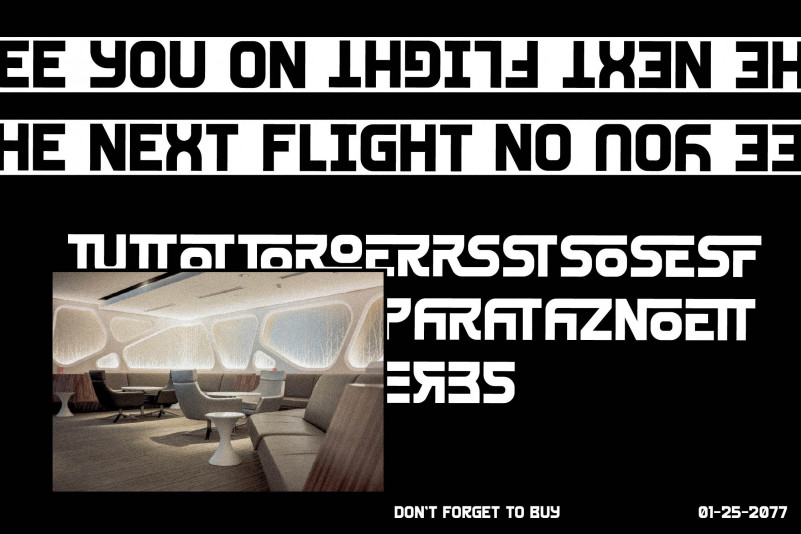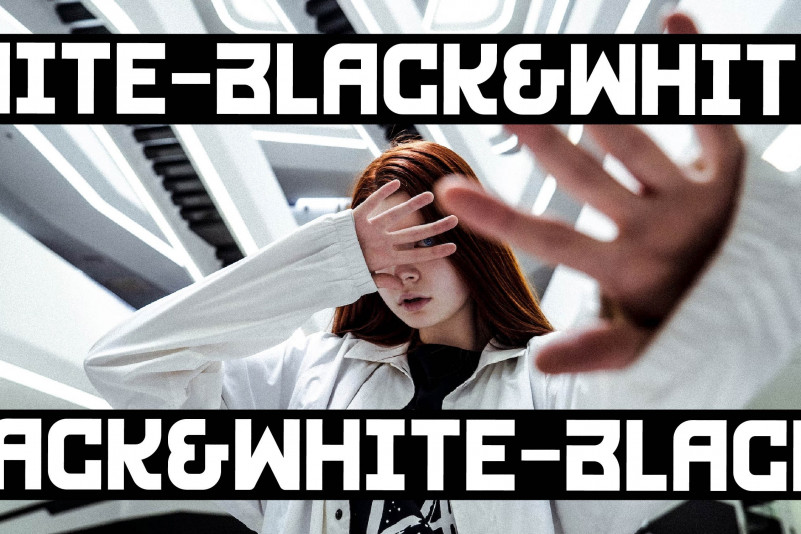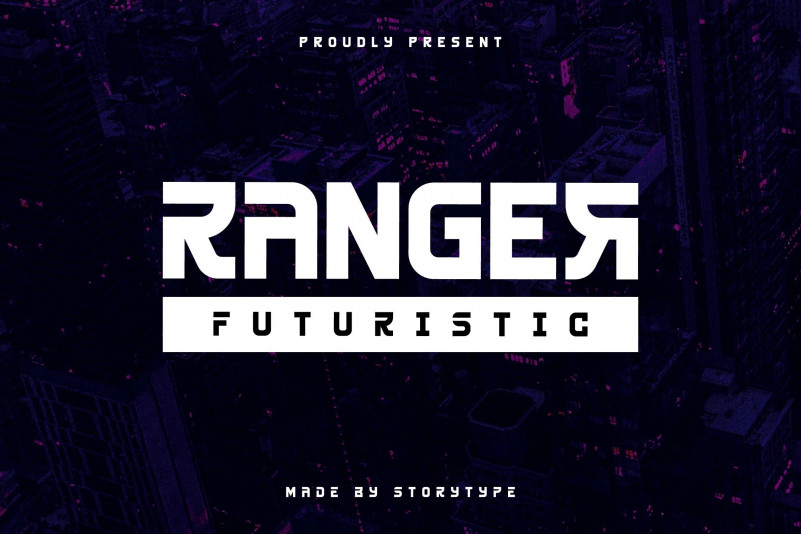
Ranger Font
Ranger Font by Storytype Studio 20,445 downloads
Ranger Font
Ranger Display Font, created by Storytype, A serif modern and classic typeface that has own unique style & modern look. This typeface is perfect for an elegant & luxury logo, book or movie title design, fashion brand, magazine, clothes, lettering, quotes, and so much more.